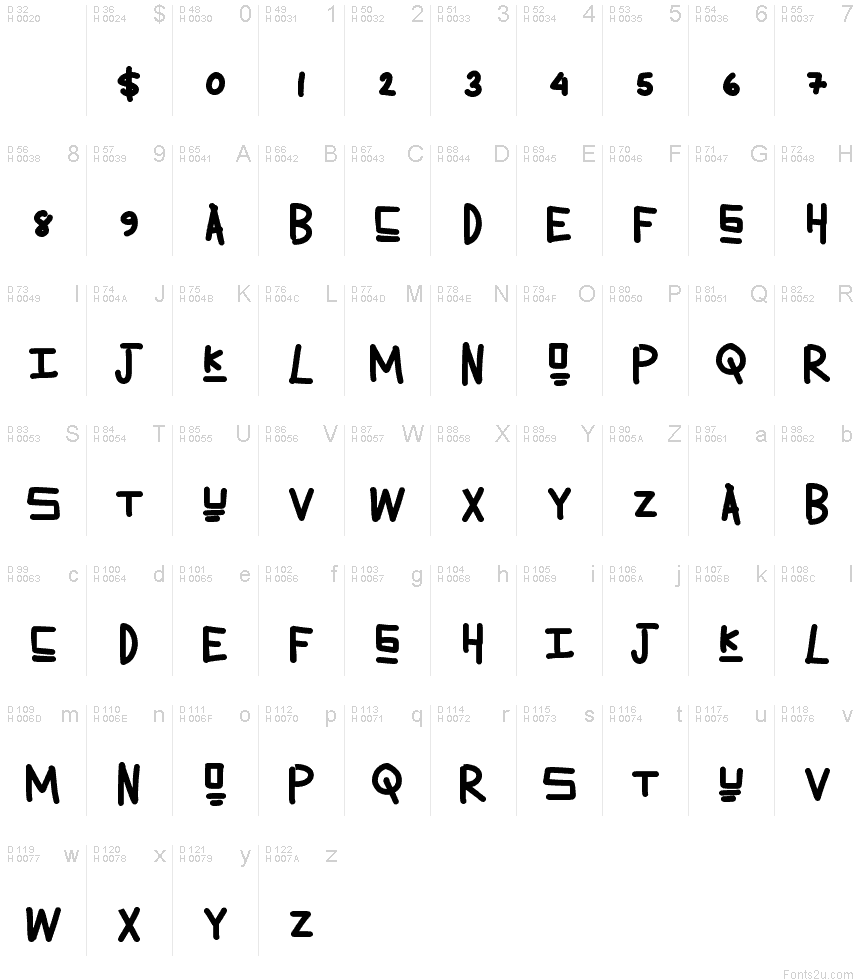
Lemonade Summer from Xerographer Fonts is a free handwritten display font with thick, rounded strokes and a cheerfully unruly silhouette. Uneven widths, blunt ends, and overlapping forms make the lettering feel quickly drawn with a broad marker.
Its marker-like lines can mingle easily with doodled fruit, sunbursts, and hand-drawn borders on drink packaging, summer event posters, and children's activity covers. The bouncy shapes also suit beach merchandise and party invitations, especially for sunny, informal themes rooted in picnics, holidays, and outdoor fun.